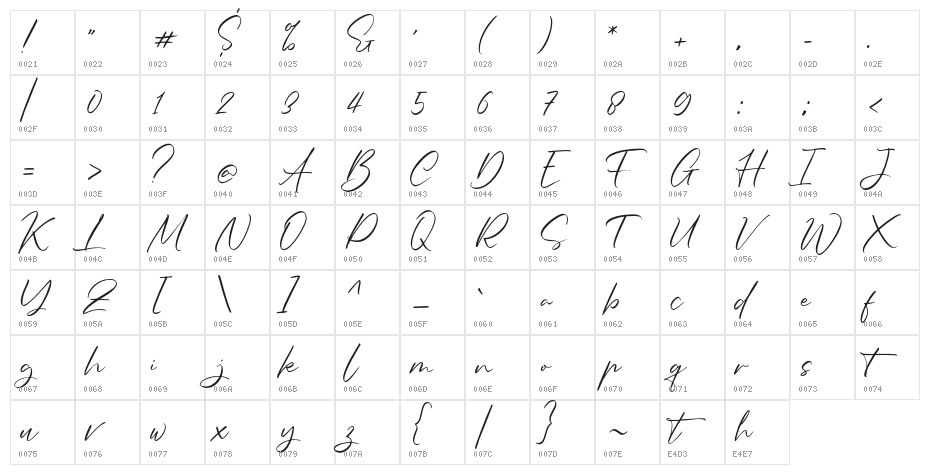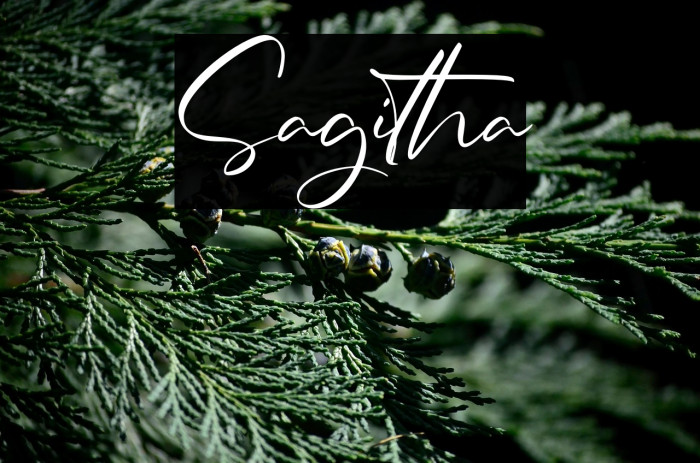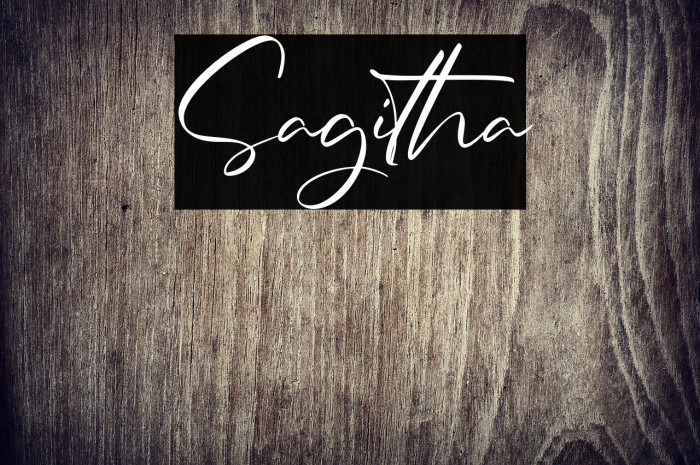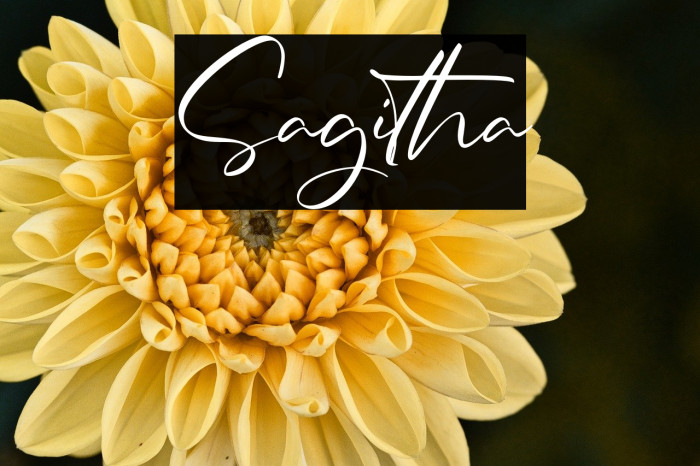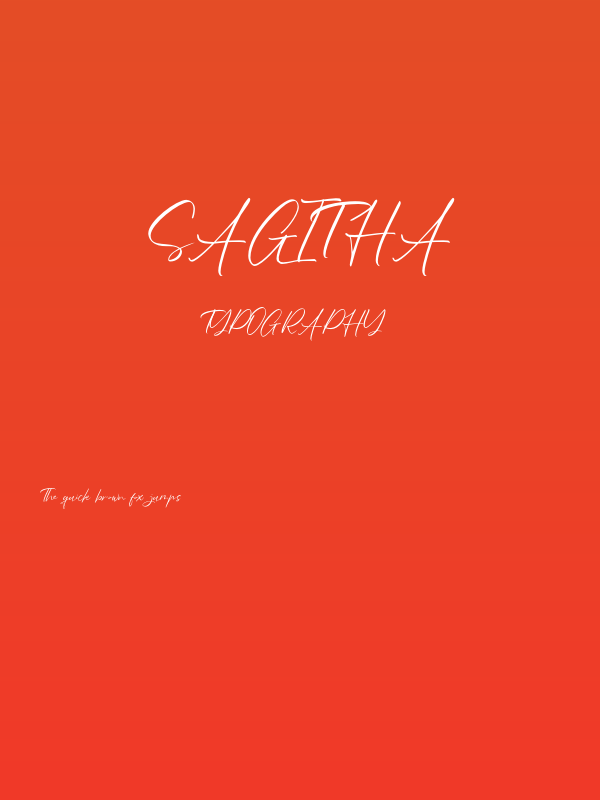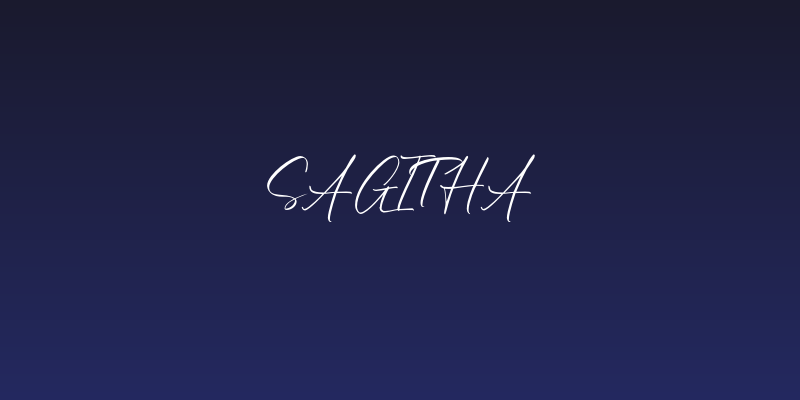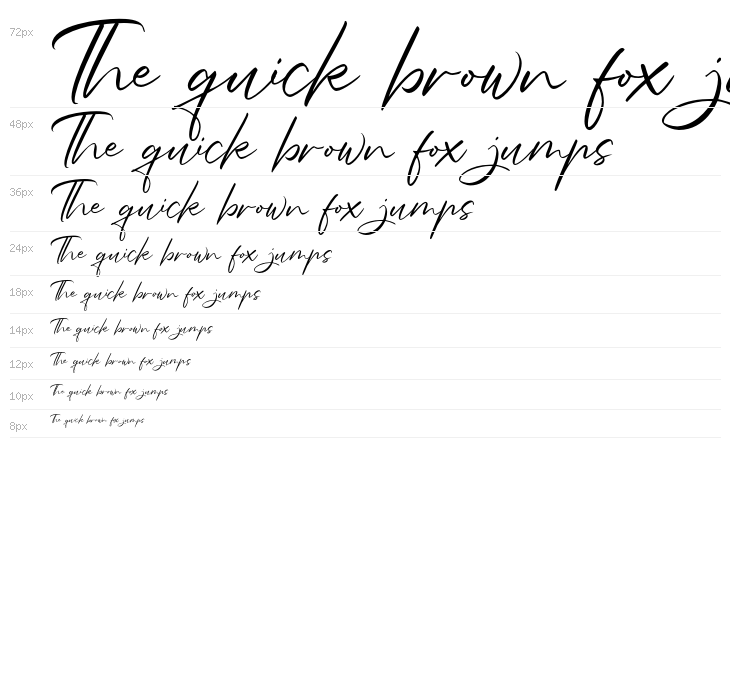
Sagitha Font
Sagitha Description
This font exhibits a lively and flowing script style, characterized by its elegant and cursive letterforms. The uppercase letters are tall and slightly slanted, with smooth curves and a consistent stroke width that conveys a sense of fluidity and grace. The lowercase letters maintain the same flowing style, with some letters featuring distinctive loops and swashes that add to the font's decorative appeal. The numerals are designed to match the script style, with rounded forms and a harmonious flow. Special characters are included, maintaining the same elegant and cursive aesthetic. Overall, this font is perfect for projects that require a touch of sophistication and elegance.
| Use Case | Logos, Invitations, Decorative text |
| Proposed Projects | Ideal for wedding invitations, greeting cards, branding, and elegant packaging designs. |